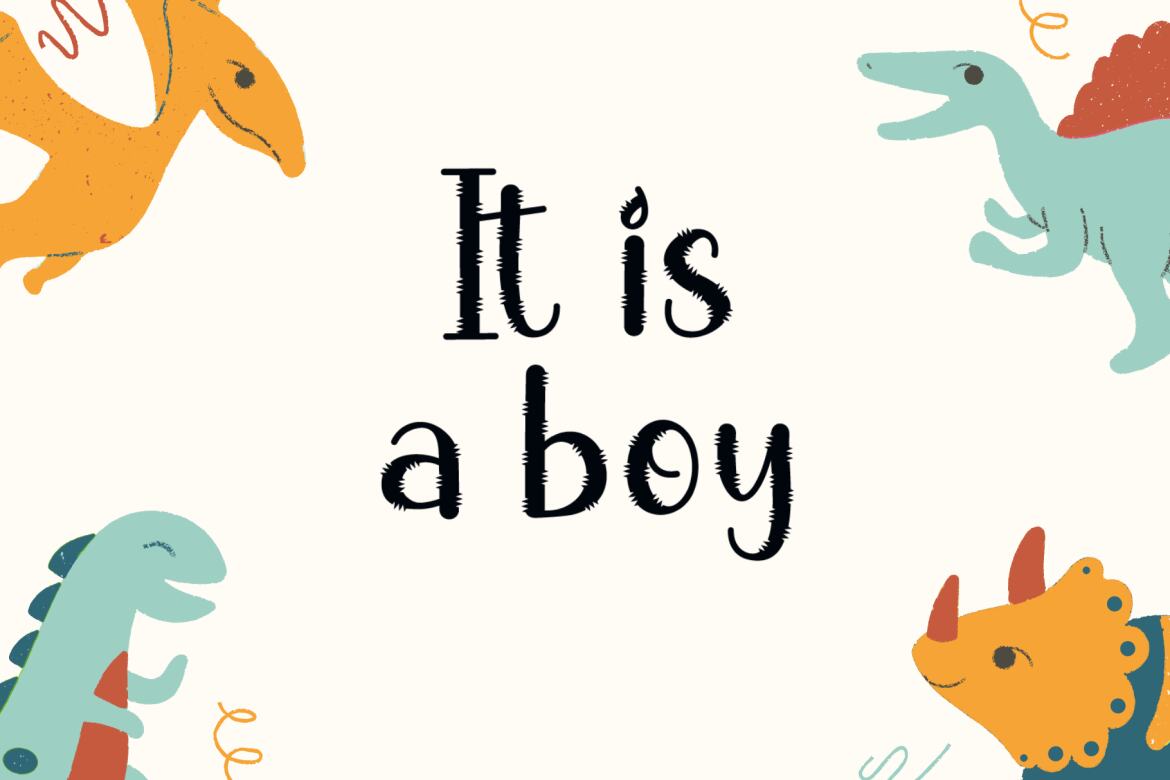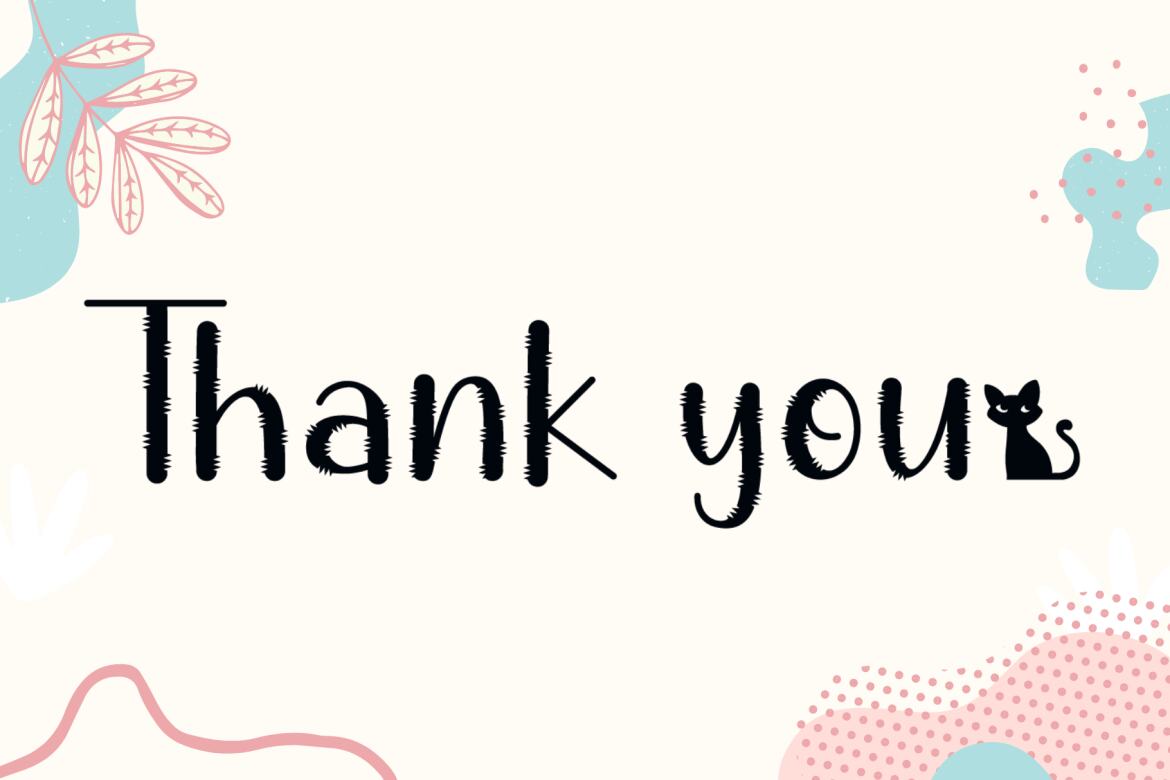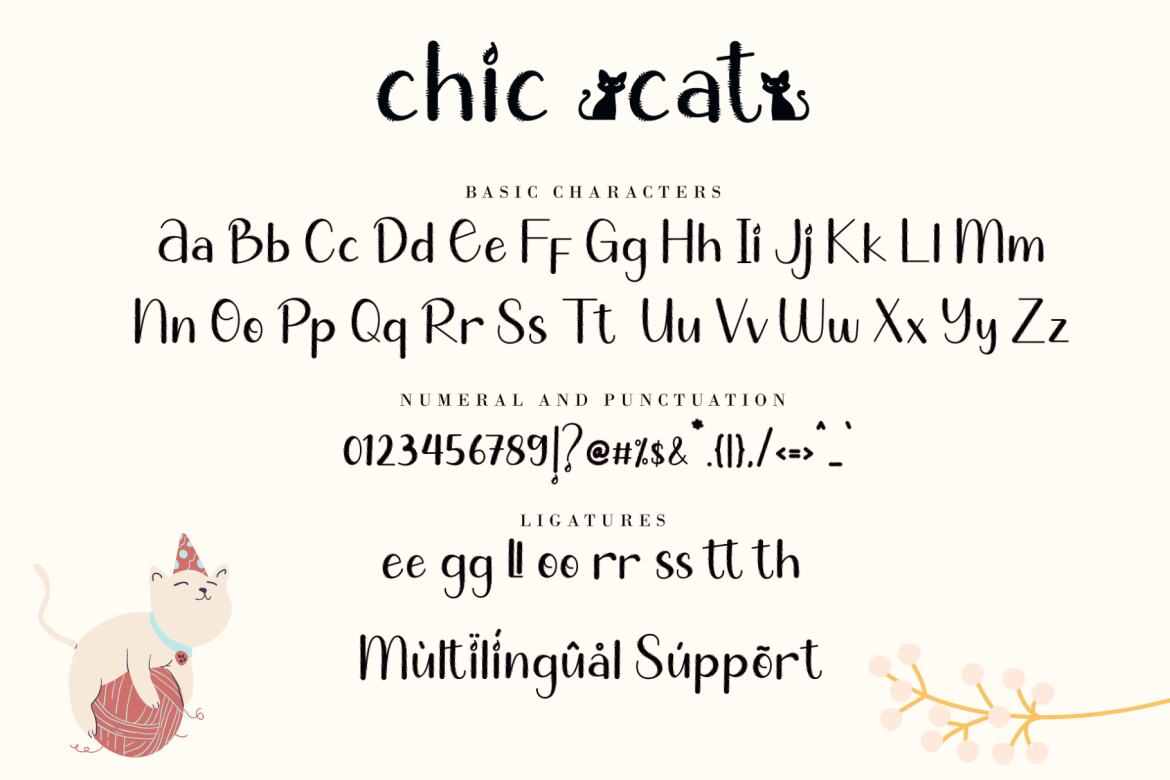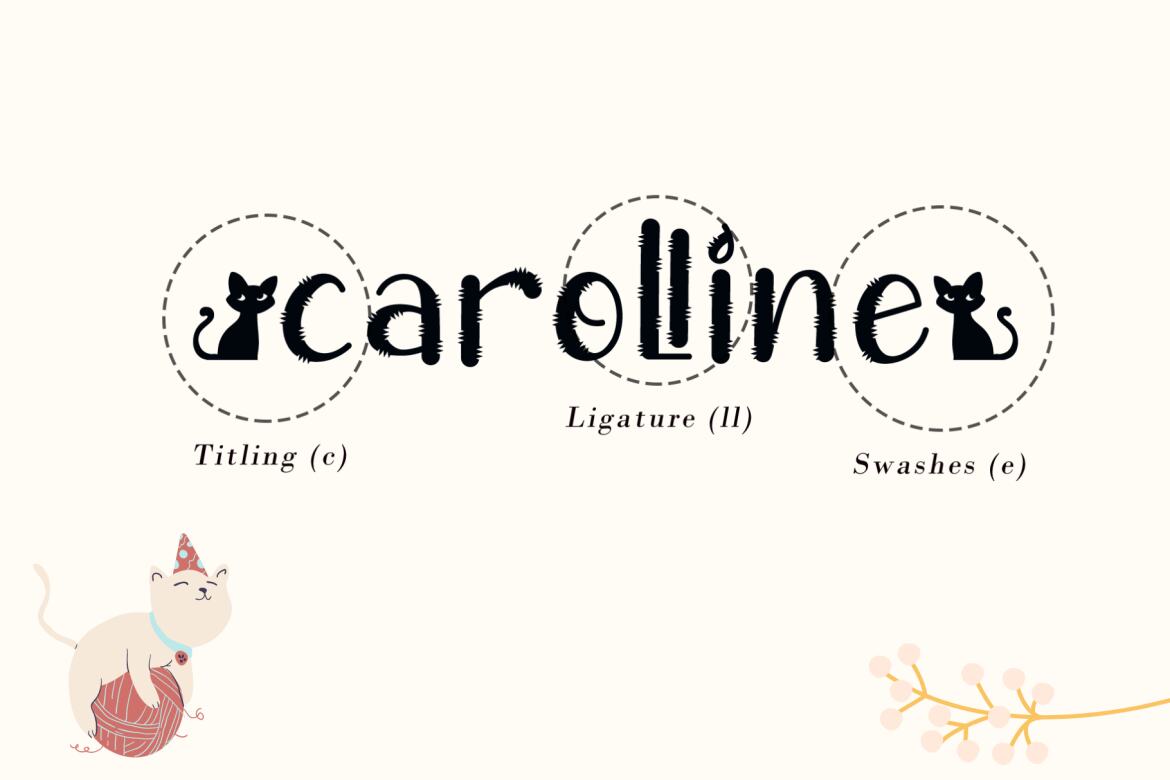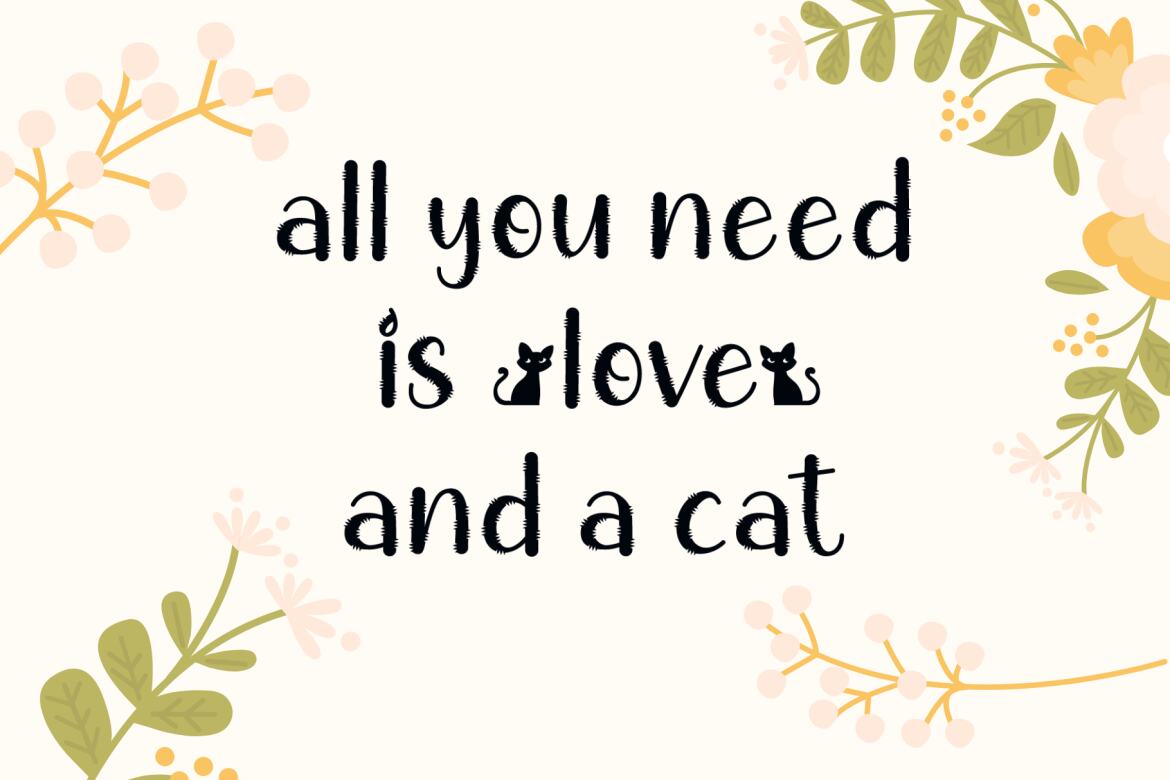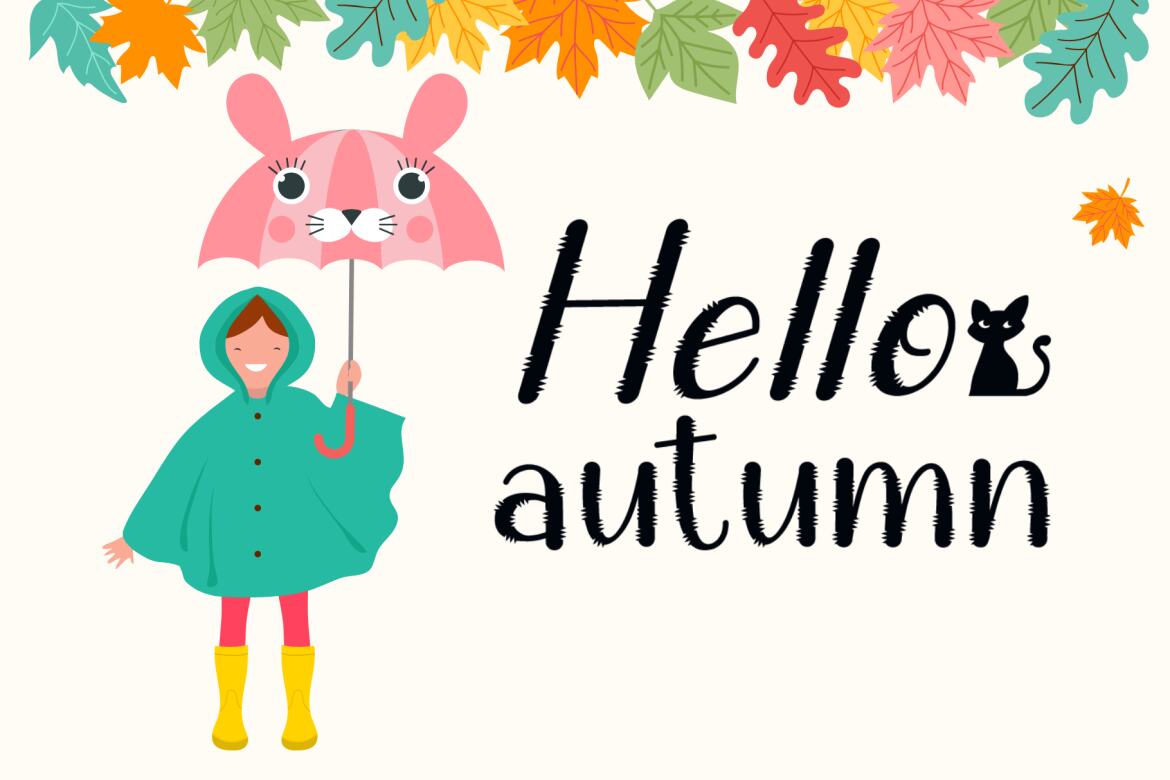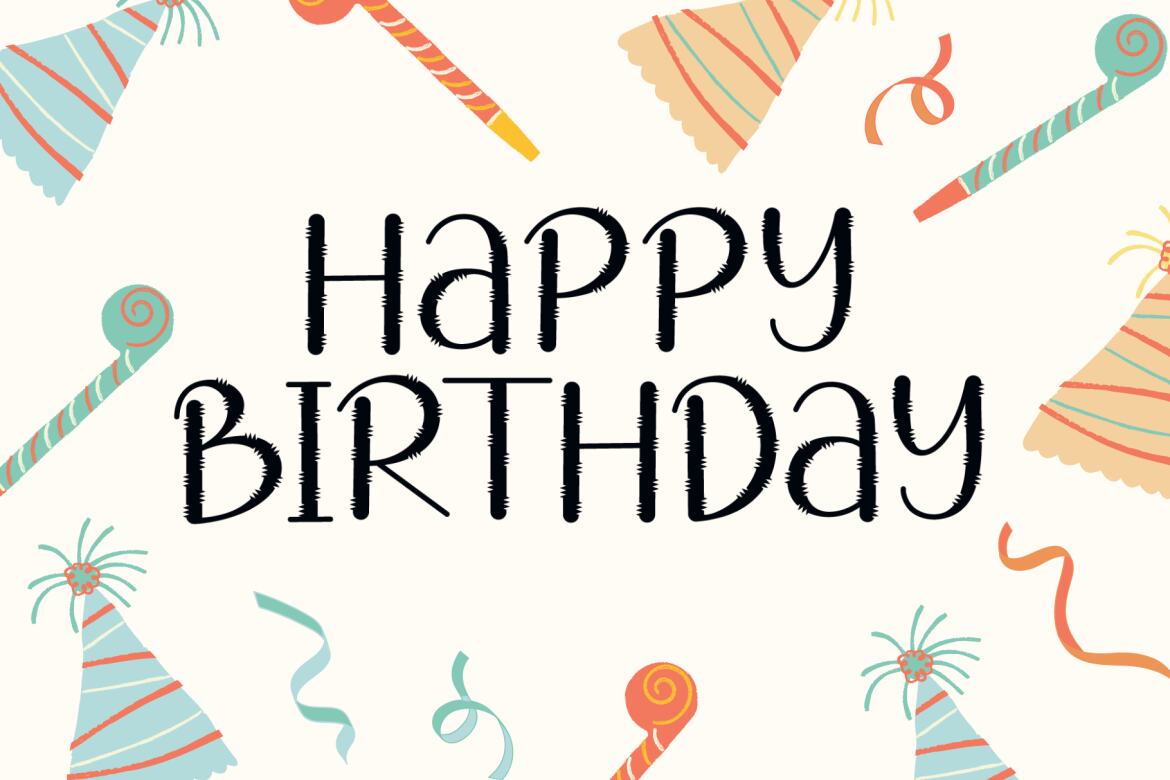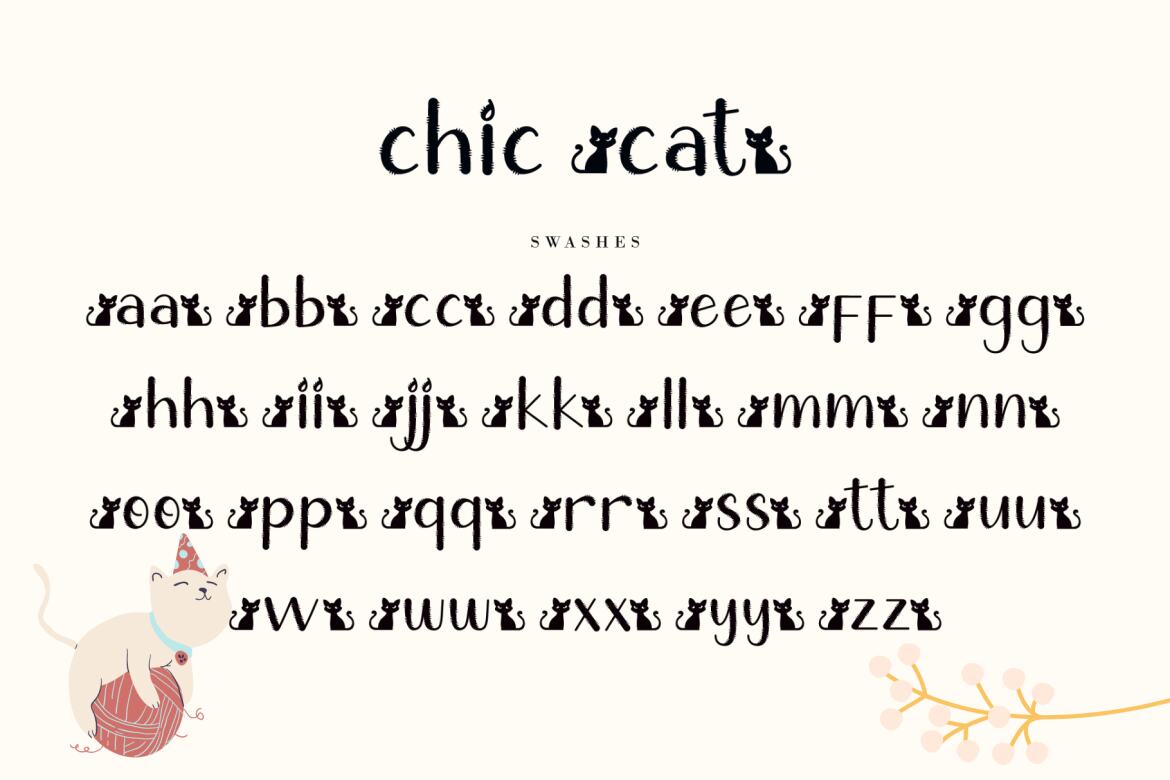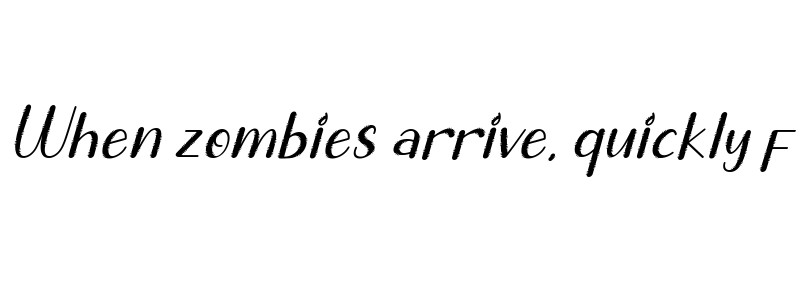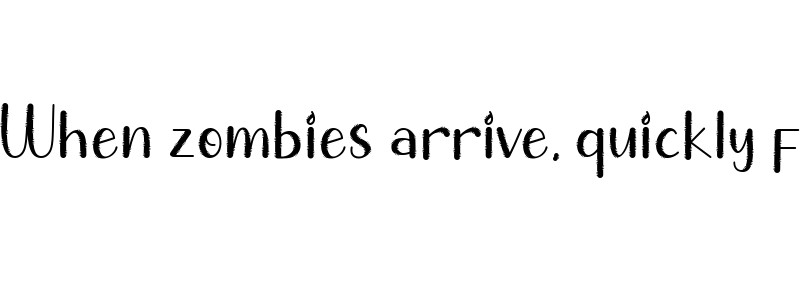
Chic Cat - Free Font
Chic Cat is a cool and uniquely designed decorative font. No matter the topic, this font will be an incredible asset to your fonts’ library, as it has the potential to elevate any creation.
• swashes, titiling & ligatures